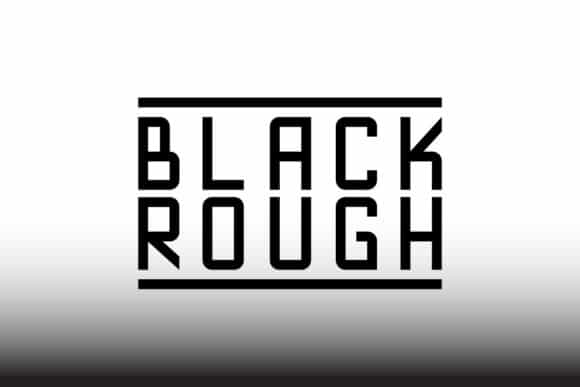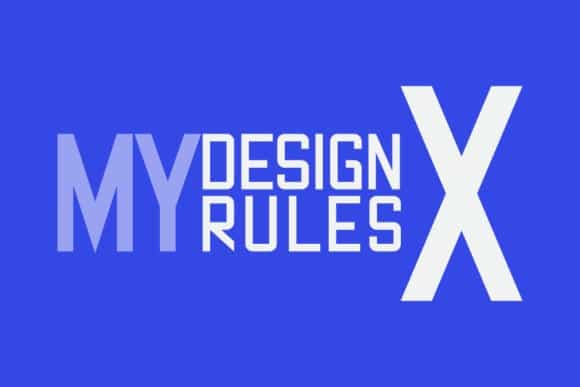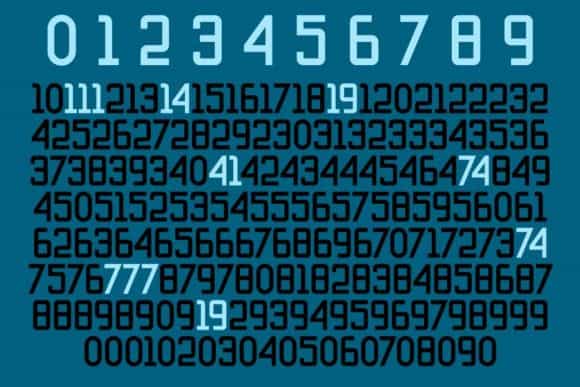
Blackrough is a sans serif font that can be used for anything and it is very refreshing. This practical semi-condensed font offers both clean & textured fonts, and oblique versions for each.